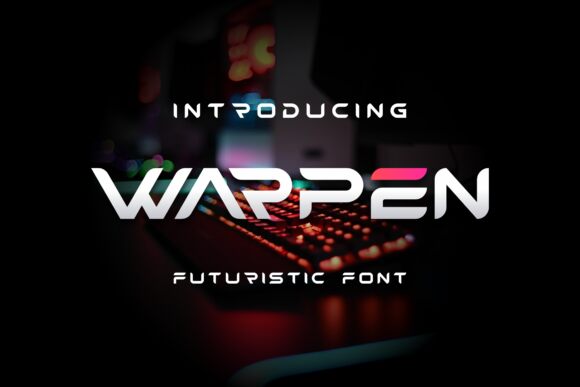
Warpen font designed by Albert Kalingga is an expanded futuristic display typeface. The geometric design of the letters gives them a modern and contemporary appeal. Their shapes are angular and sleek and although they might easily remind us of sci-fi movies, they have an artistic side inspired by architecture, engineering, and machinery.
The free typeface can be used on construction industry websites, digital watches, cars’ dashboards, technology magazines covers, visors of robotic gadgets like exoskeletons or mechanical prosthetics for example. Each use case will make the text look beautiful in its own way yet still have a common foundation.